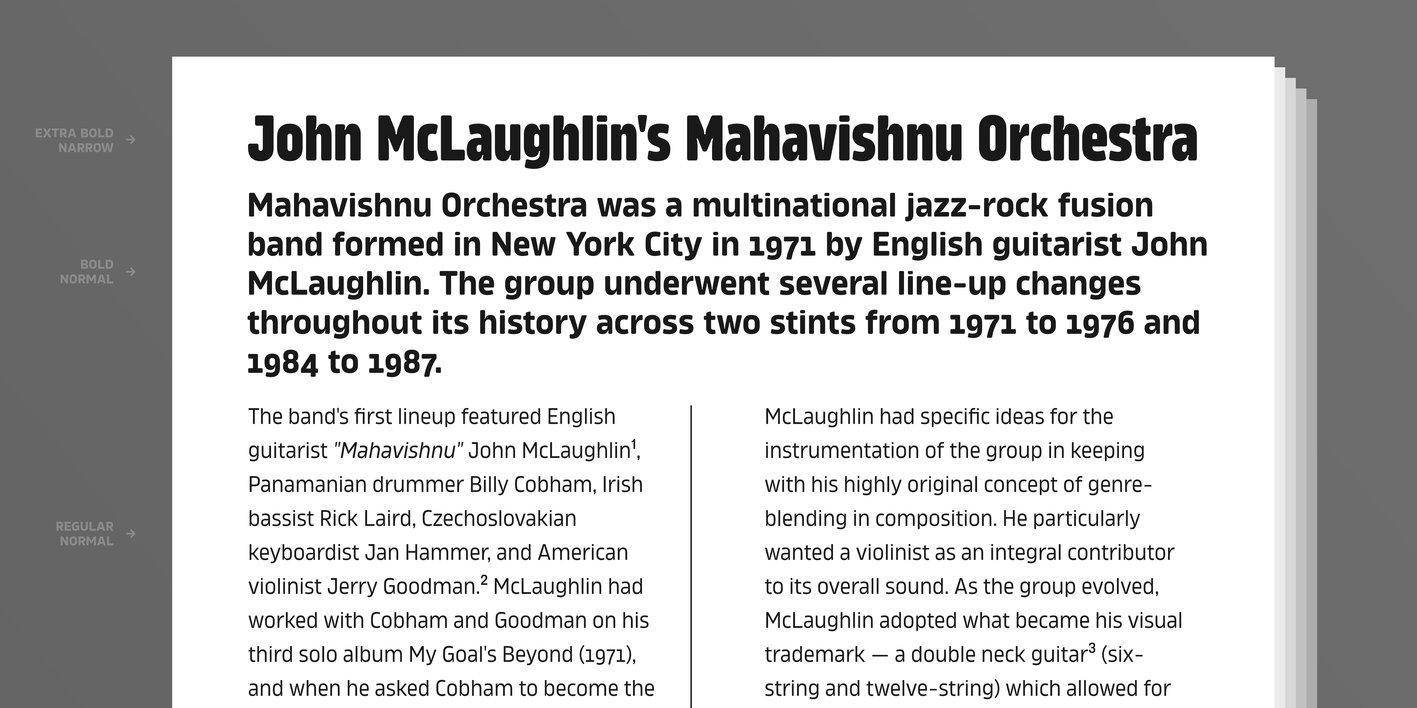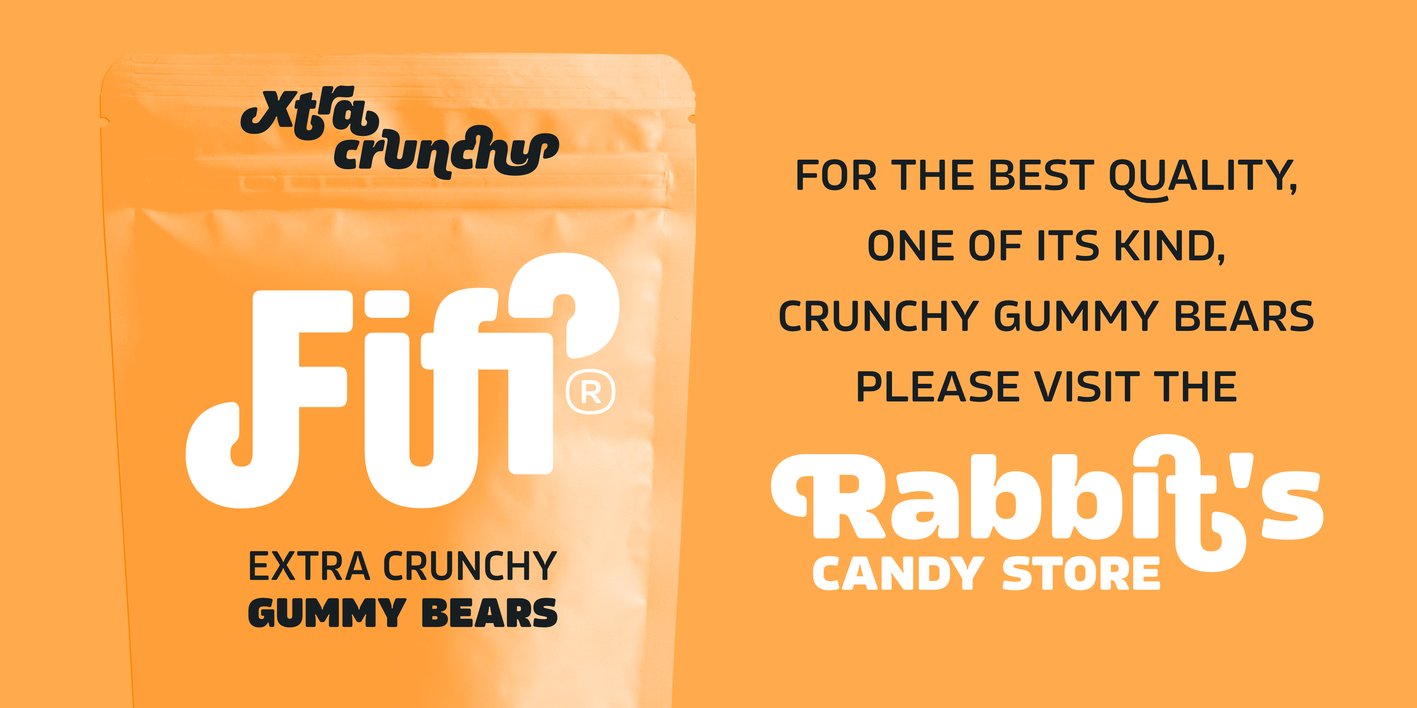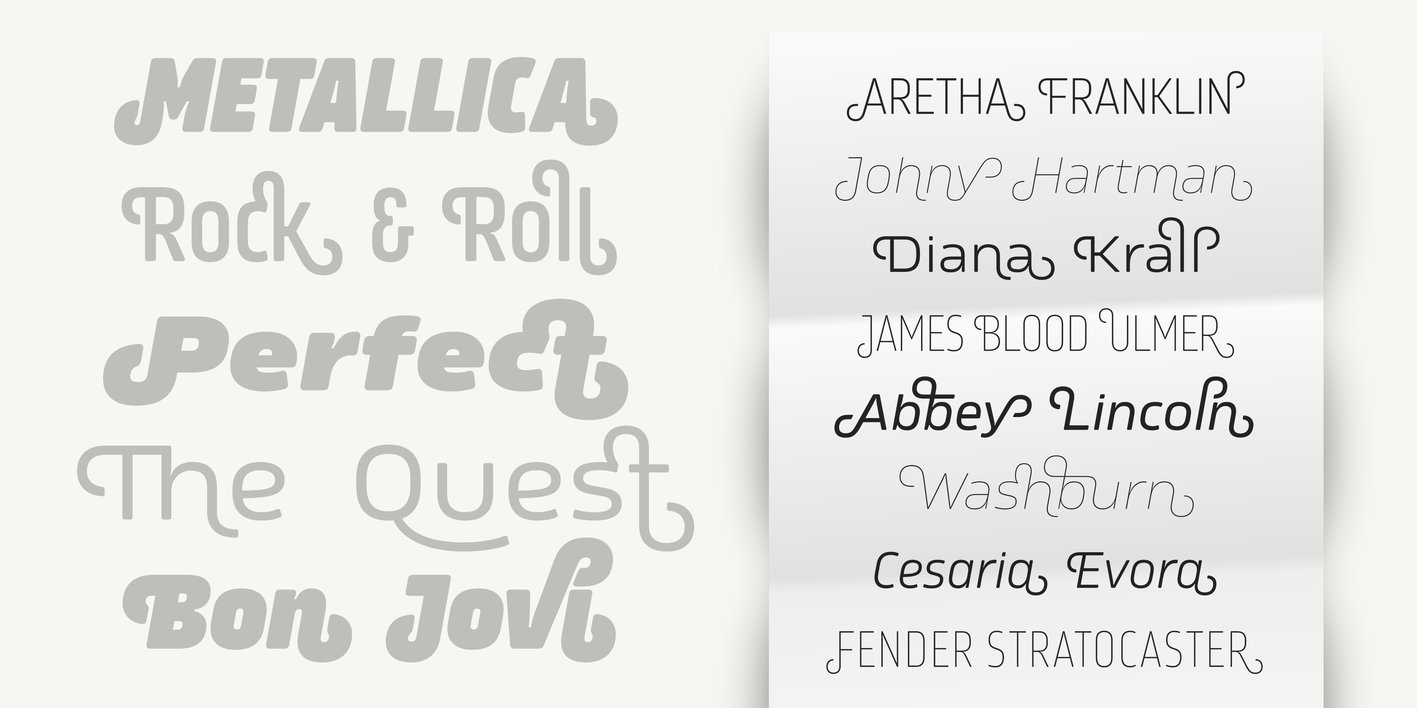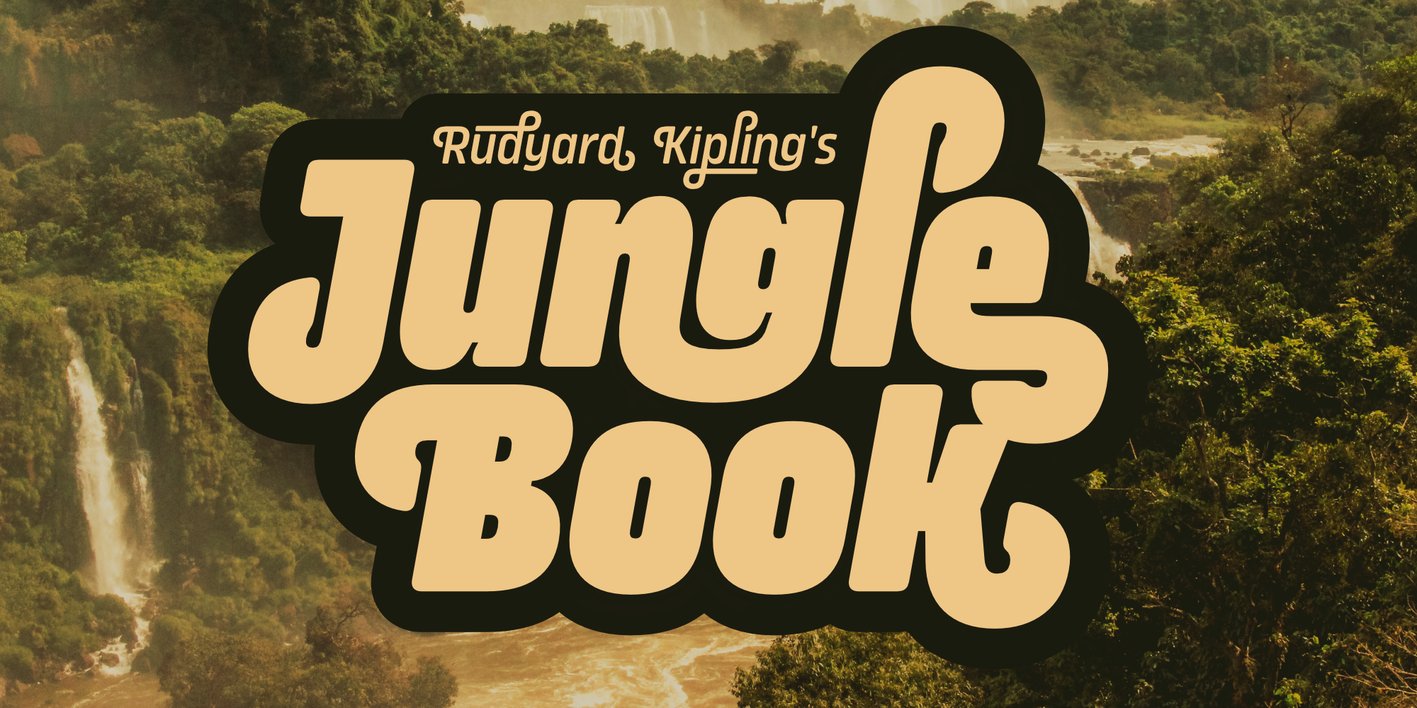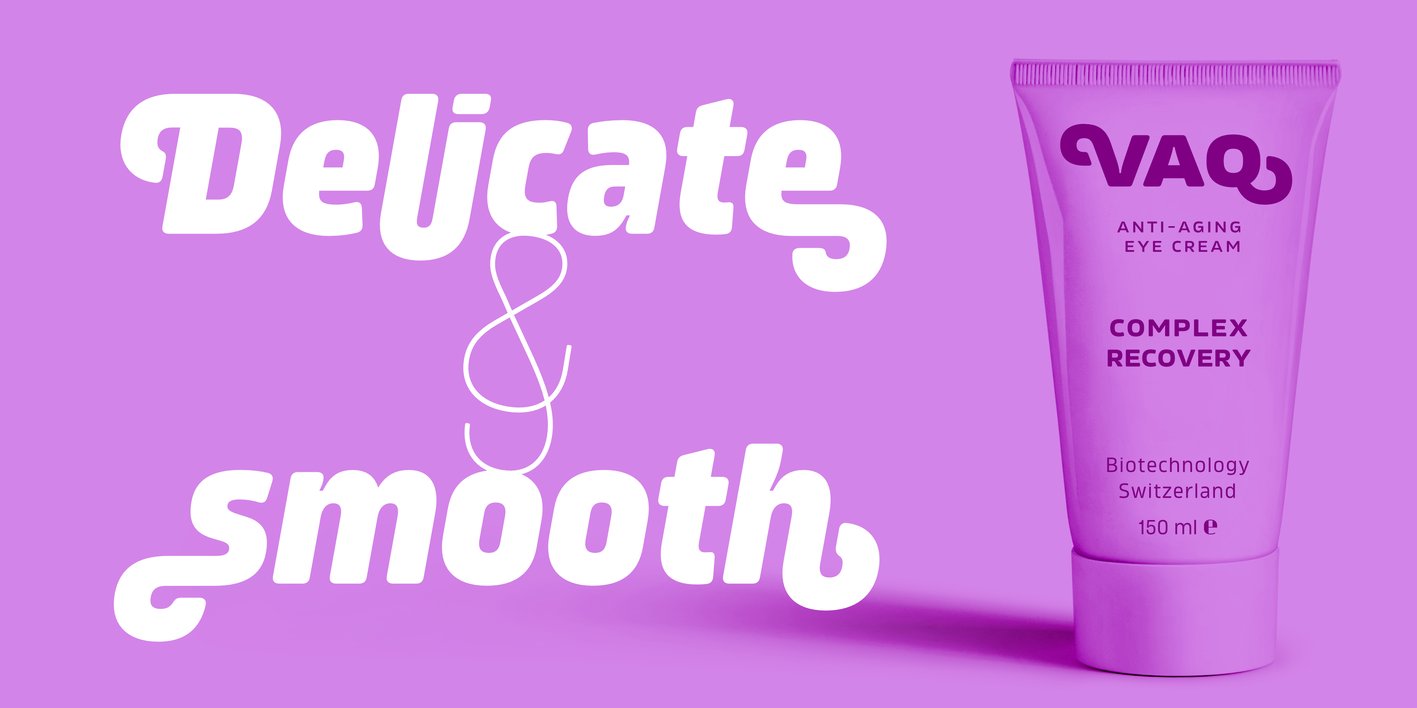
Amfibia Font
Amfibia Font excels in marine biology research centers, wetland conservation campaigns, aquatic ecosystem education materials, amphibian research facility branding, environmental science publications, water conservation initiatives, ecological restoration projects, biodiversity protection programs, nature documentary titles, and aquatic wildlife sanctuary signage. This adaptive typeface brings environmental awareness and aquatic life protection to any ecology-focused design project.
Amfibia Font is exciting because it embodies the remarkable adaptability and ecological importance of amphibian species, featuring fluid letterforms that seem to transition seamlessly between environments, capturing the unique ability of amphibians to thrive in both aquatic and terrestrial habitats. Its adaptive character instantly conveys environmental flexibility, ecological balance, and the critical role amphibians play in healthy ecosystem functioning.
Amfibia Font family includes Light, Regular, Medium, and Bold weights with aquatic alternates, flowing flourishes, ecosystem ornamental elements, and environmental symbols that enhance the ecological aesthetic, providing conservation designers with adaptive tools for creating typography that celebrates biodiversity and promotes amphibian conservation awareness.
Environmental designers appreciate Amfibia Font for its exceptional ability to convey ecological adaptability and environmental consciousness through fluidly crafted letterforms. The font's adaptive character and aquatic details create immediate associations with wetland habitats, ecosystem health, and the vital environmental indicators that amphibians represent for monitoring ecological balance and environmental quality.
The design philosophy behind Amfibia Font celebrates the remarkable evolutionary success of amphibians and their critical role as environmental indicators that help scientists understand ecosystem health and climate change impacts, making it particularly effective for research institutions, conservation organizations, and environmental education programs. Scientific teams working on amphibian conservation find this font essential.
Whether used for wetland conservation programs, marine research facilities, or environmental education initiatives, Amfibia Font delivers the perfect combination of ecological authenticity and environmental awareness. Its adaptive appeal and conservation focus make it an indispensable choice for organizations that protect aquatic ecosystems, promote biodiversity conservation, and celebrate the remarkable adaptability of amphibian species in our changing world.